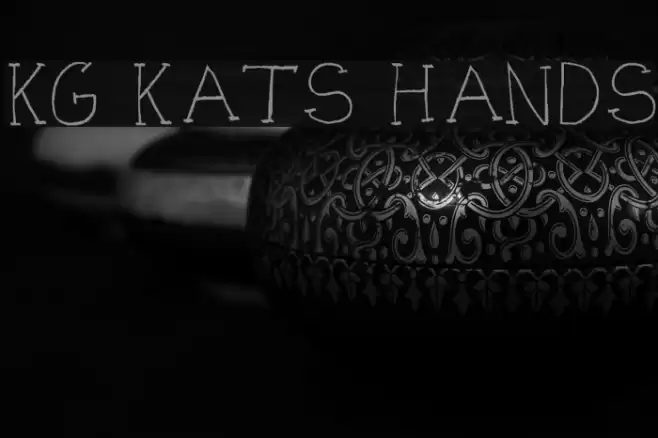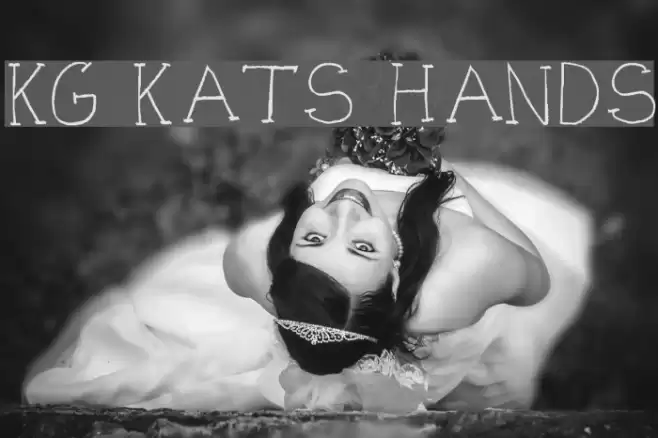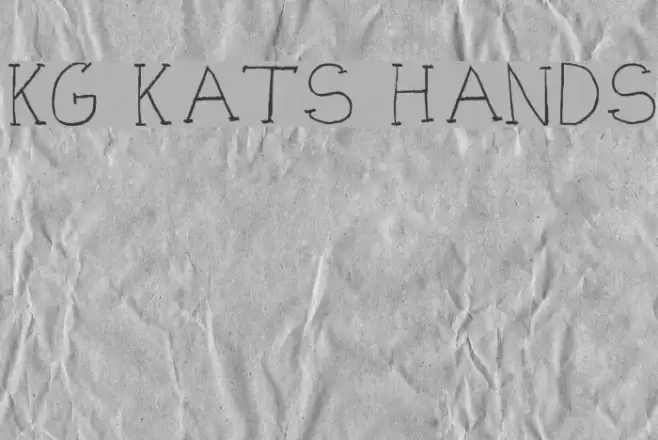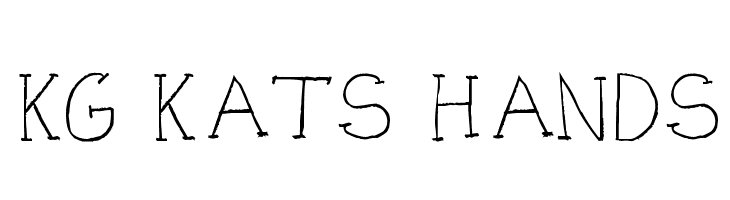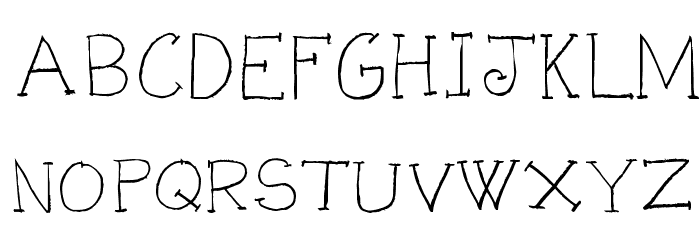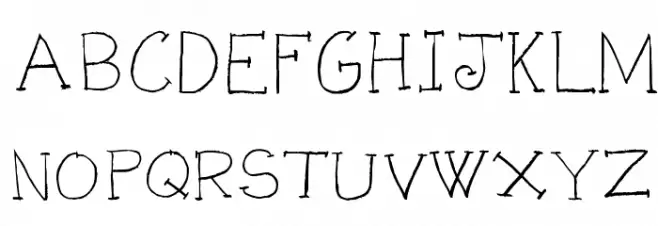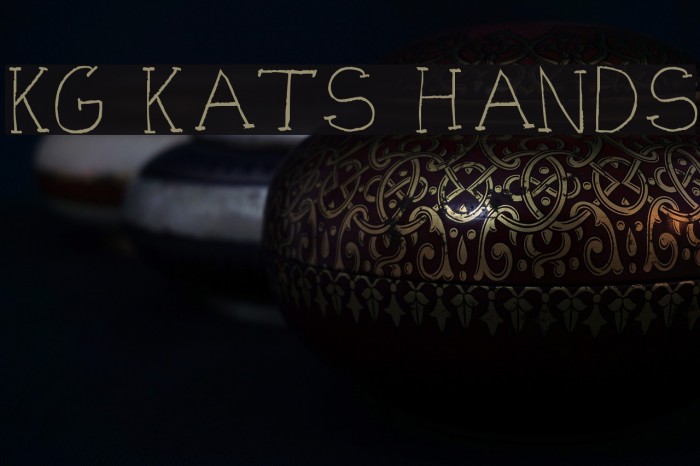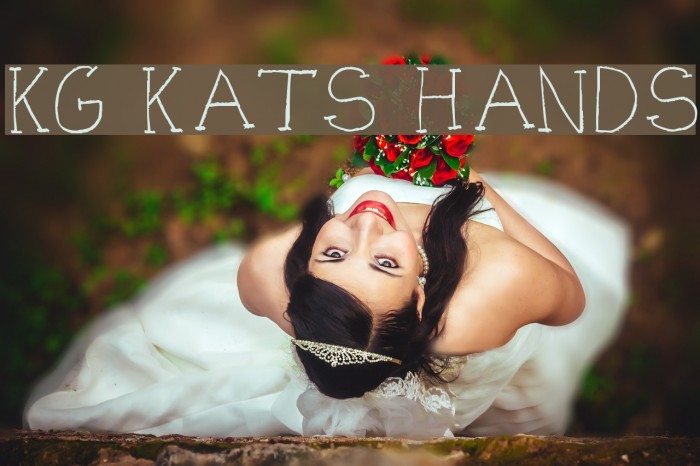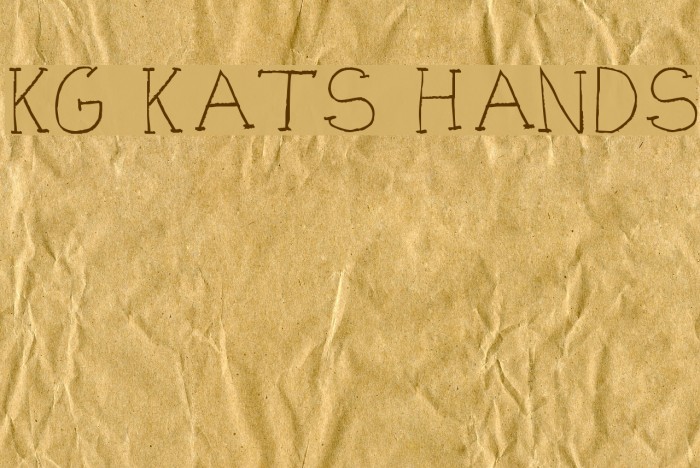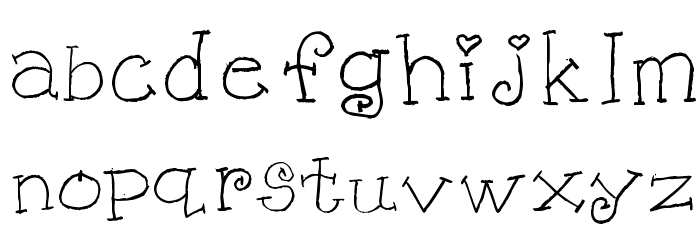
KG KAT'S HANDS Font
KG KAT'S HANDS Description
This playful and whimsical font features a hand-drawn style with irregular, quirky lines that give it a unique charm. The characters are slightly uneven, adding to the casual and friendly appearance. Some letters incorporate decorative elements, such as hearts, enhancing its playful nature. The font maintains a consistent stroke width, contributing to a cohesive look despite its informal style. It is ideal for projects that require a personal touch, such as children's books, greeting cards, or creative branding.
A playful, hand-drawn font with quirky, irregular lines and decorative elements from Uncategorized fonts.
- Proposed Projects: Children's books, greeting cards, creative branding, scrapbooking, and playful invitations.
- Overall Style: Playful
- Use Case: Headlines, Logos, Decorative text